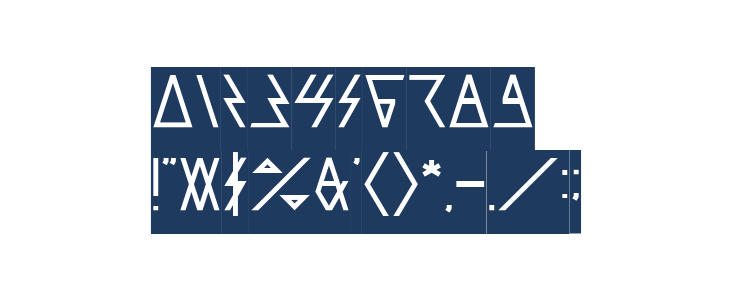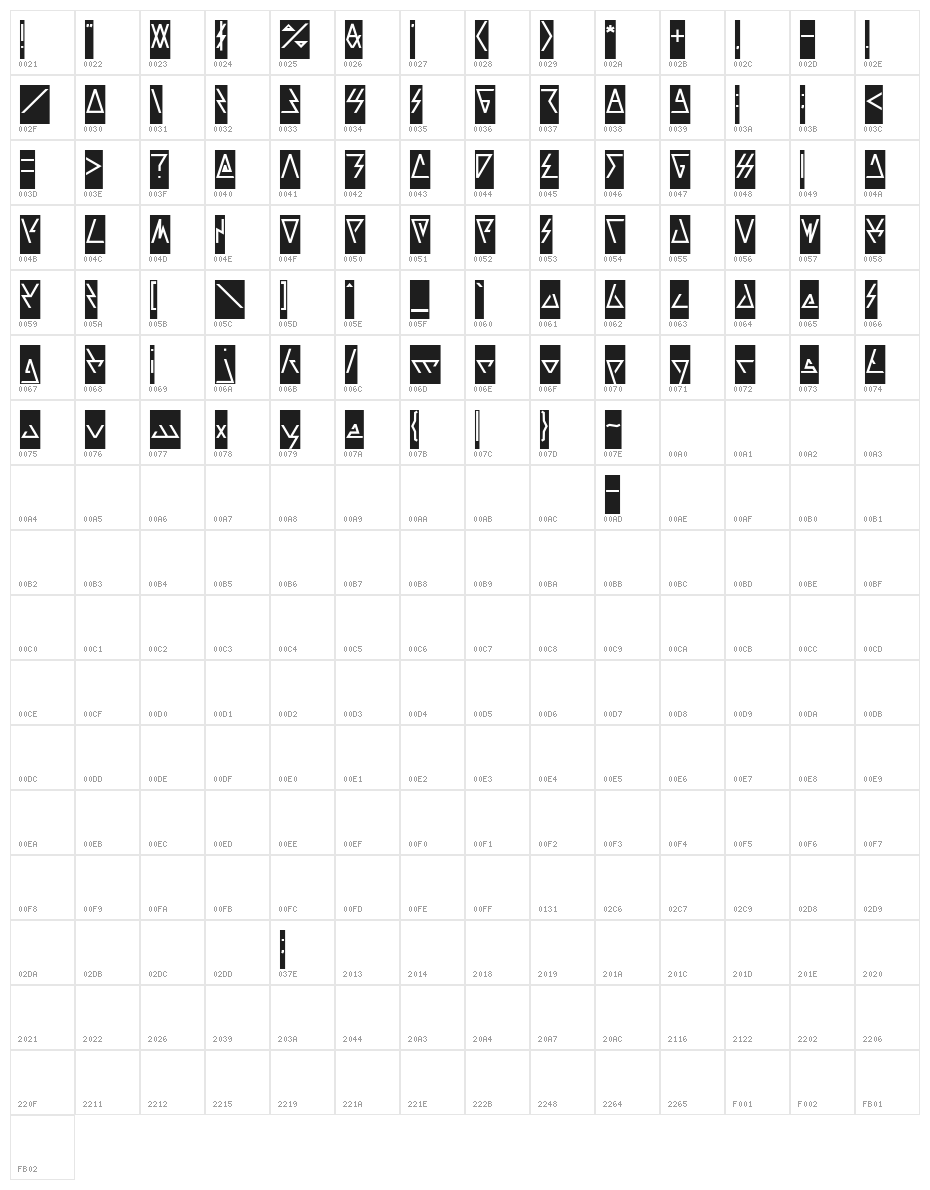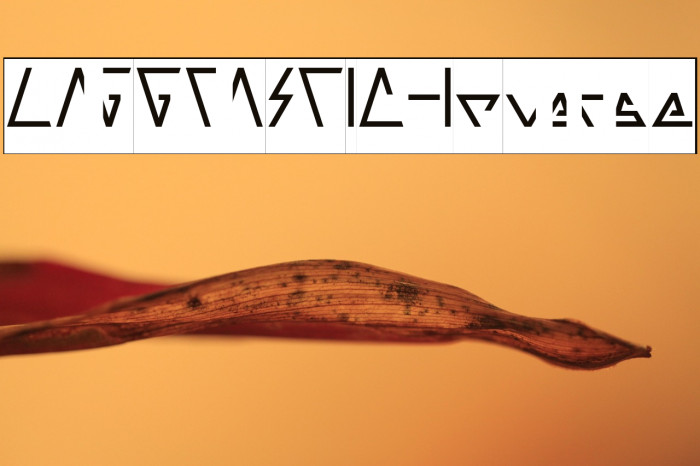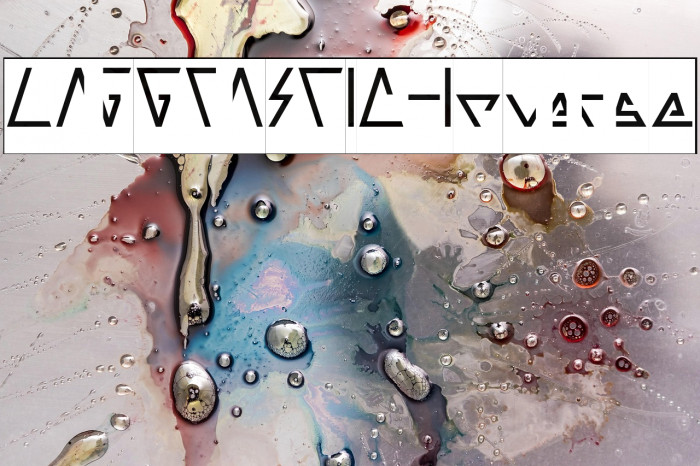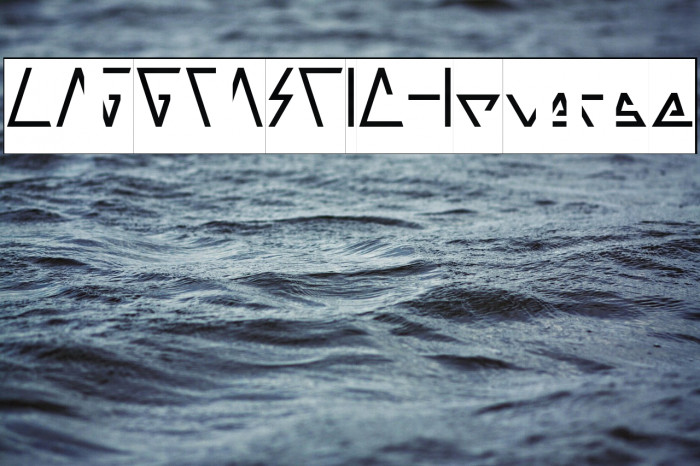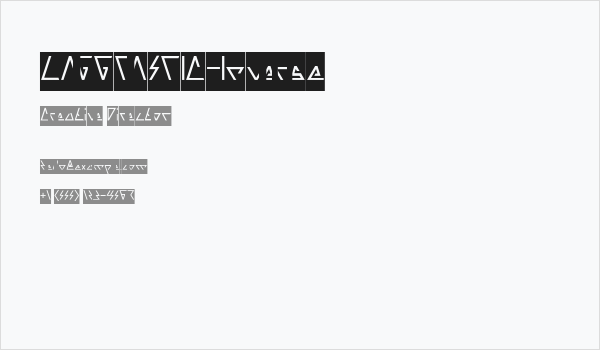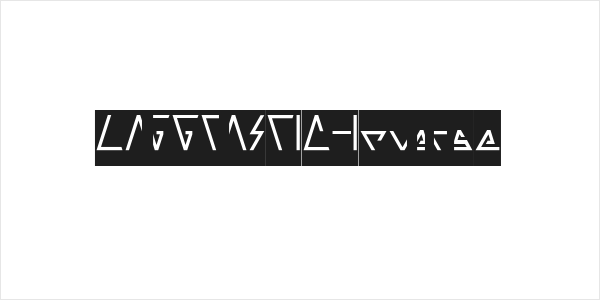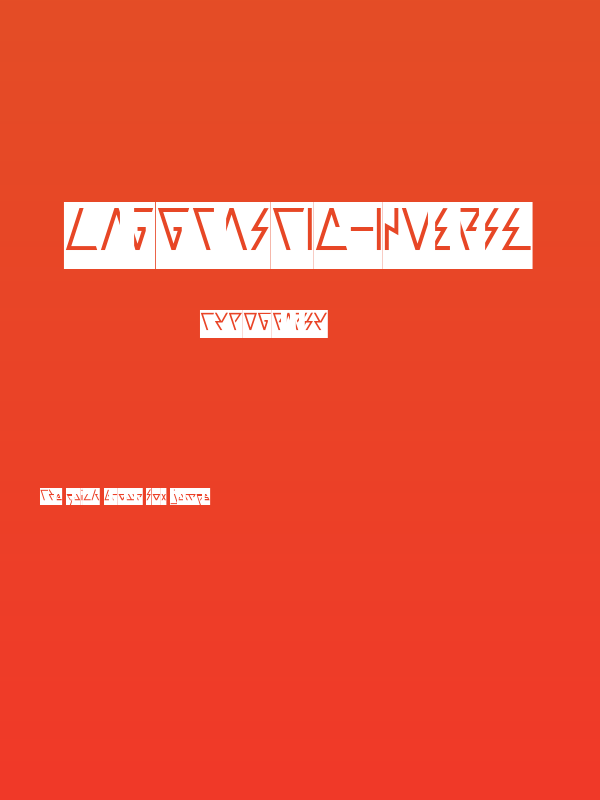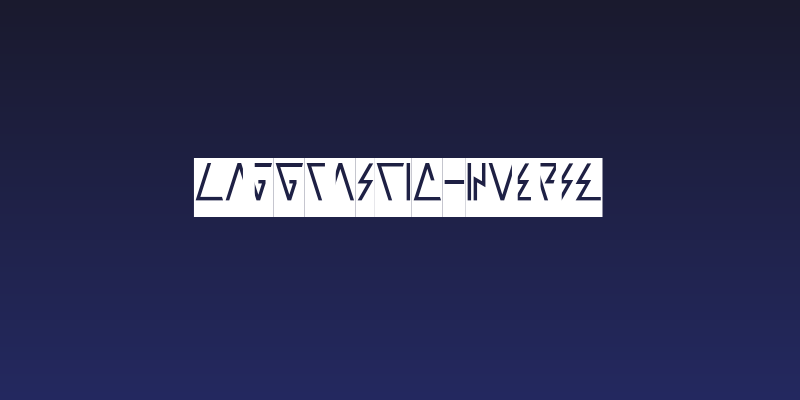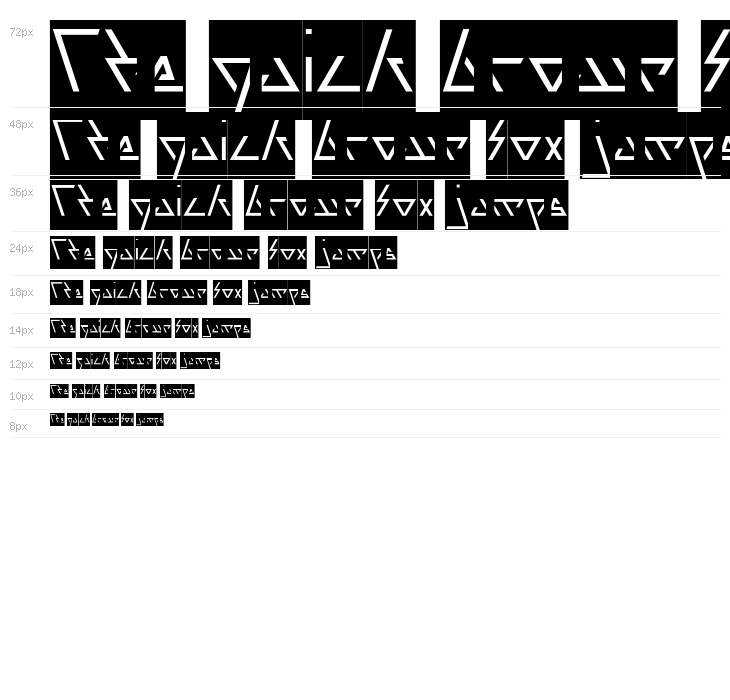
LAGGTASTIC-Inverse Font
LAGGTASTIC-Inverse Description
This font features a highly geometric and angular design, characterized by sharp edges and a futuristic aesthetic. Each character is constructed with bold, straight lines that form unique, abstract shapes, giving it a distinct and modern look. The uppercase and lowercase letters maintain a consistent style, with variations in size and form that add to its dynamic appearance. Numbers and special characters follow the same angular theme, ensuring a cohesive visual experience. The font's striking design makes it ideal for projects that require a bold statement or a modern, tech-inspired feel.
| Proposed Projects | Ideal for sci-fi themed posters, video game titles, tech branding, and futuristic event flyers. |